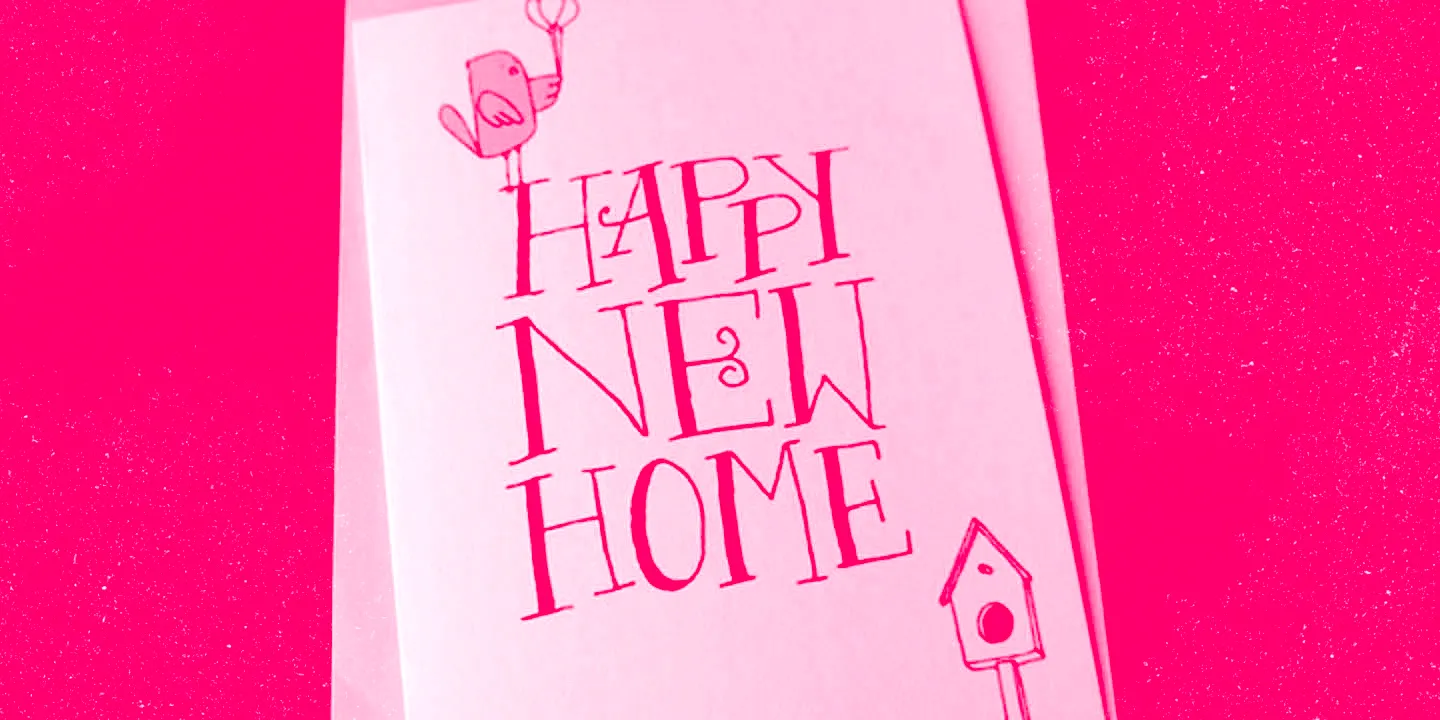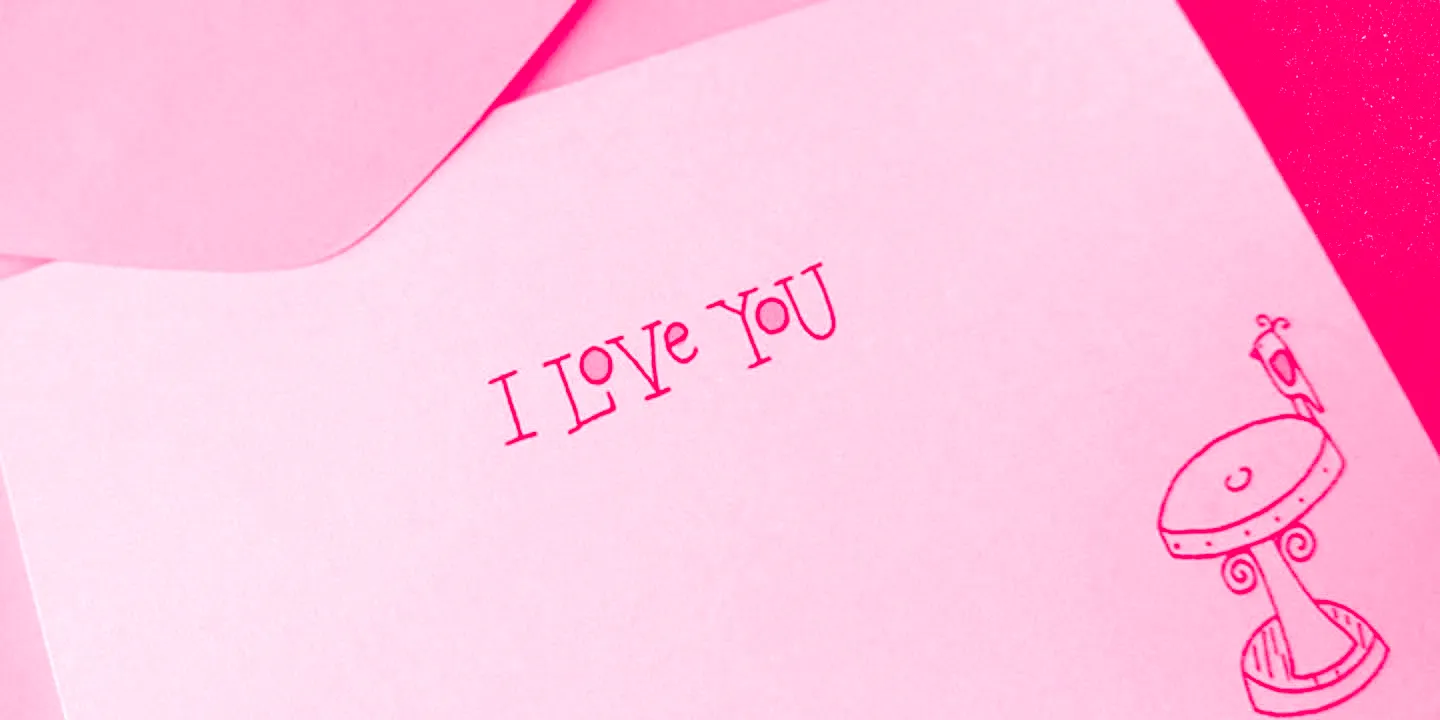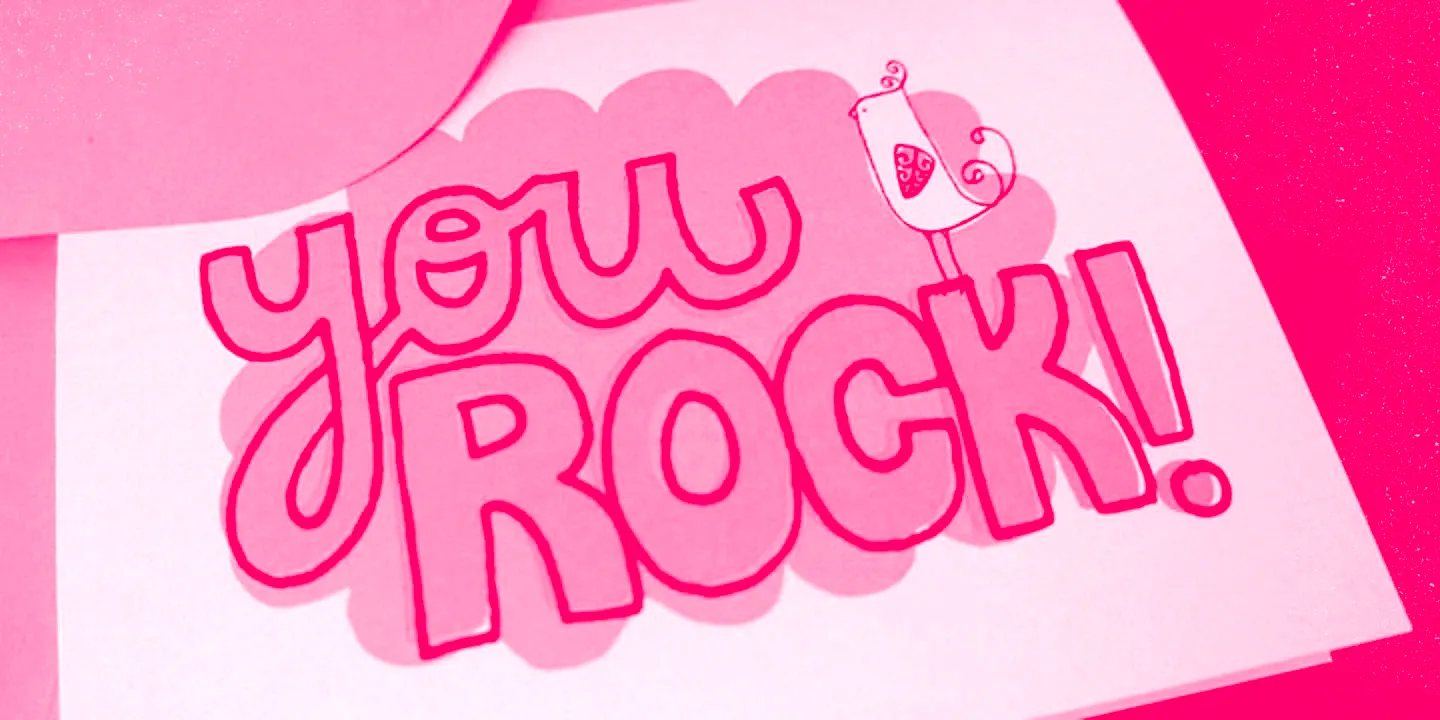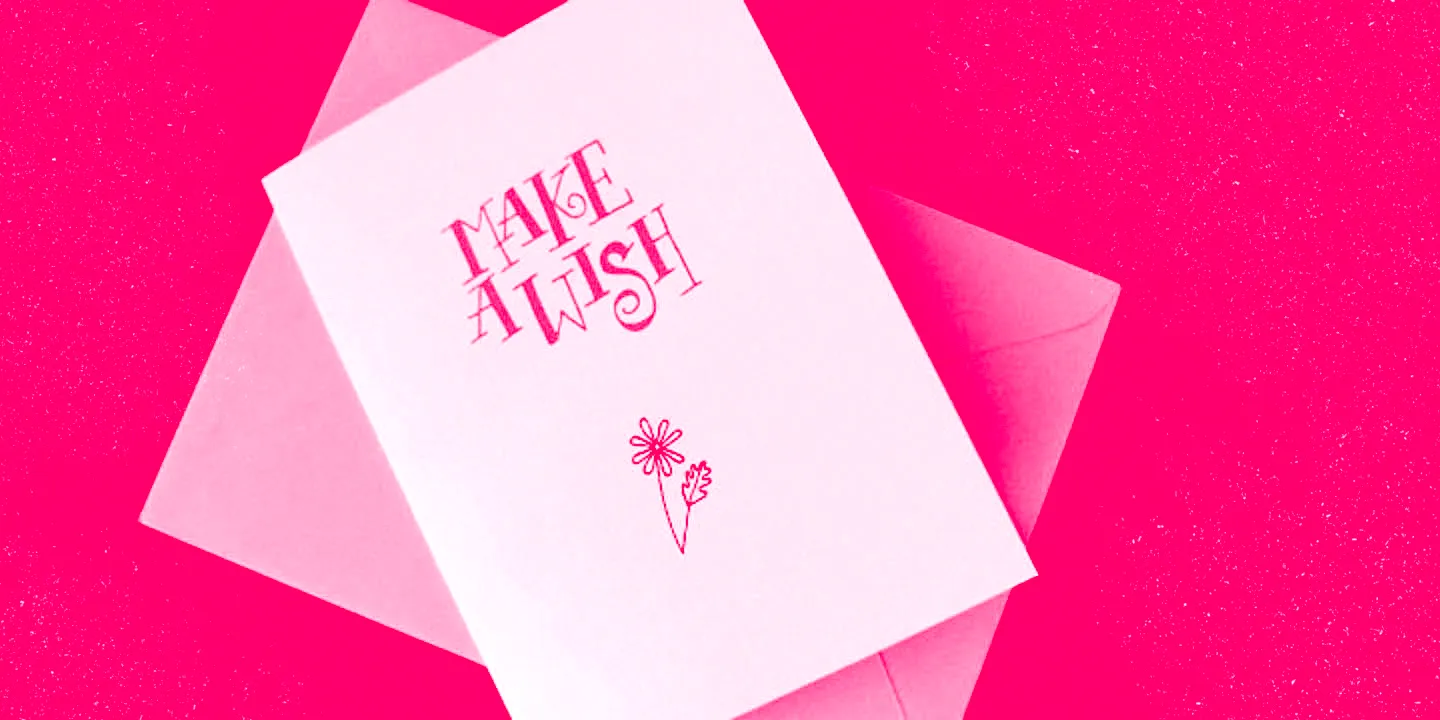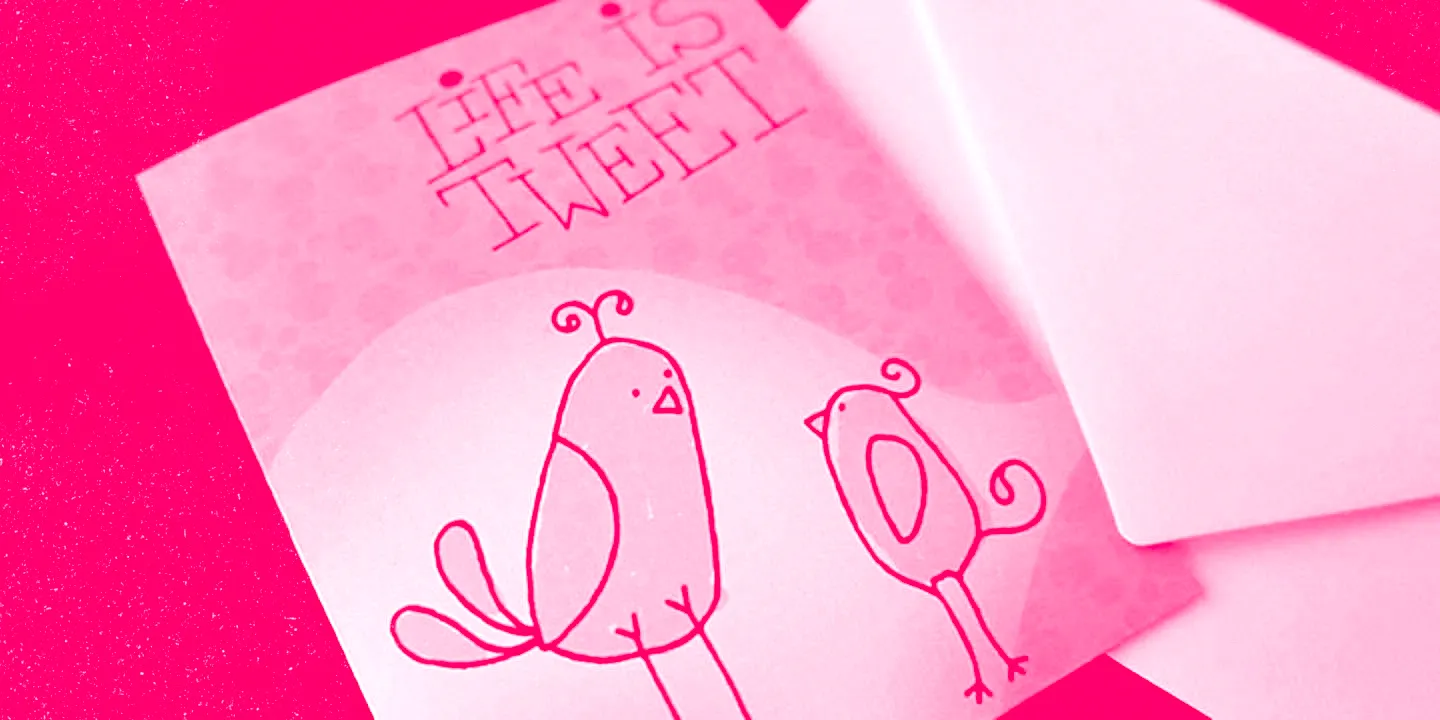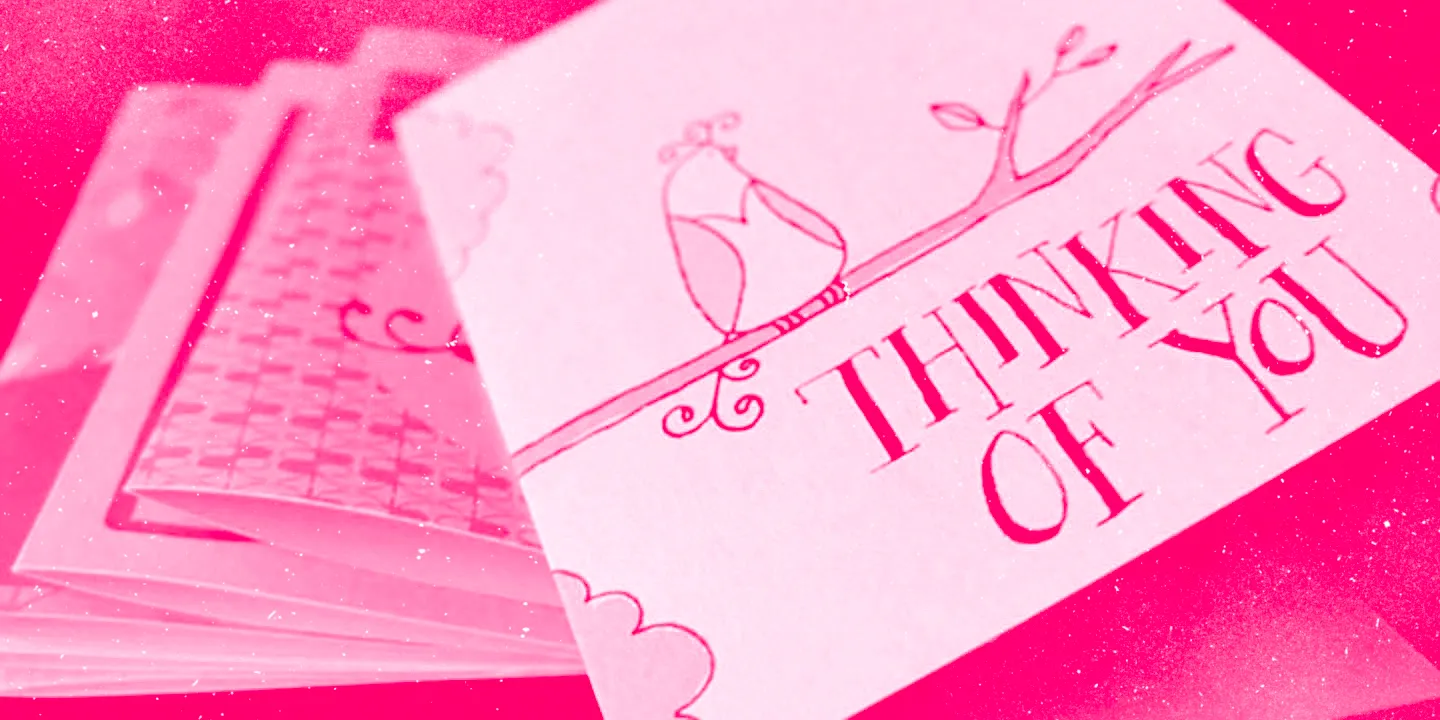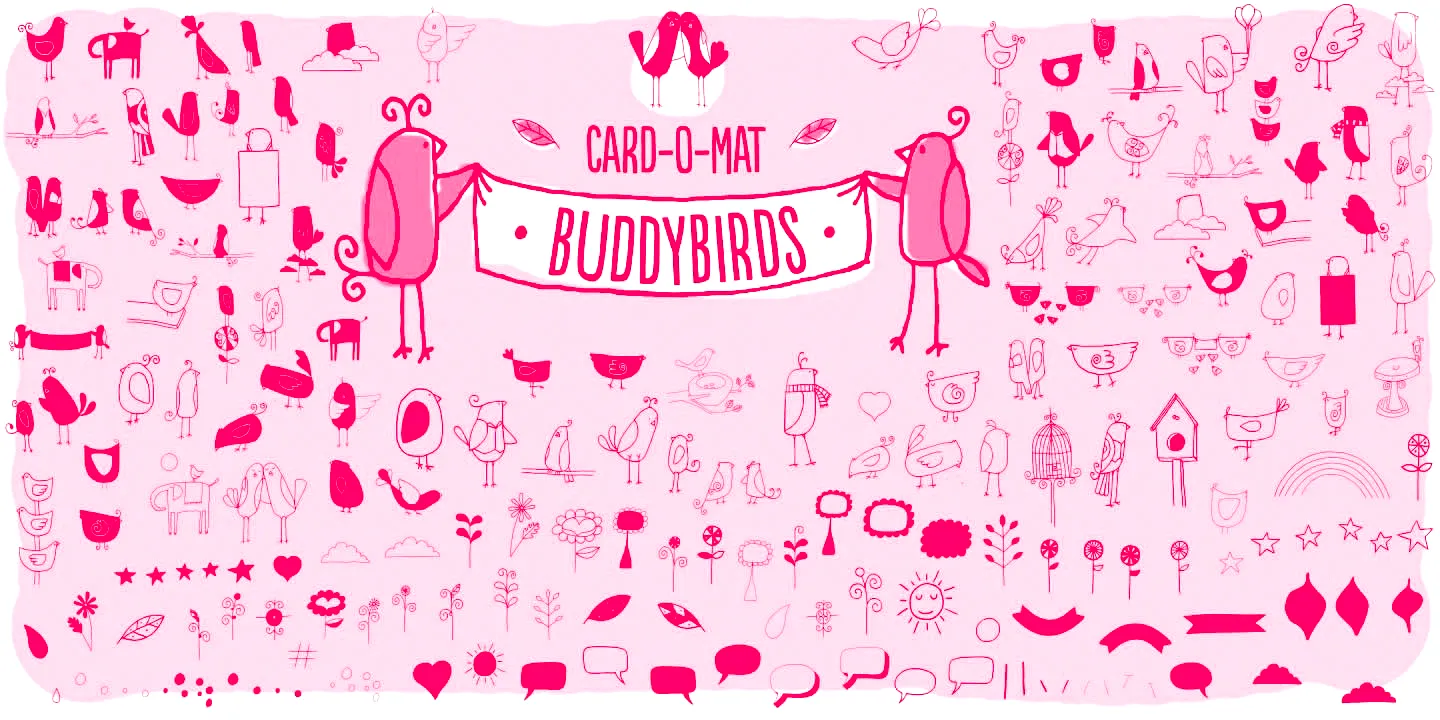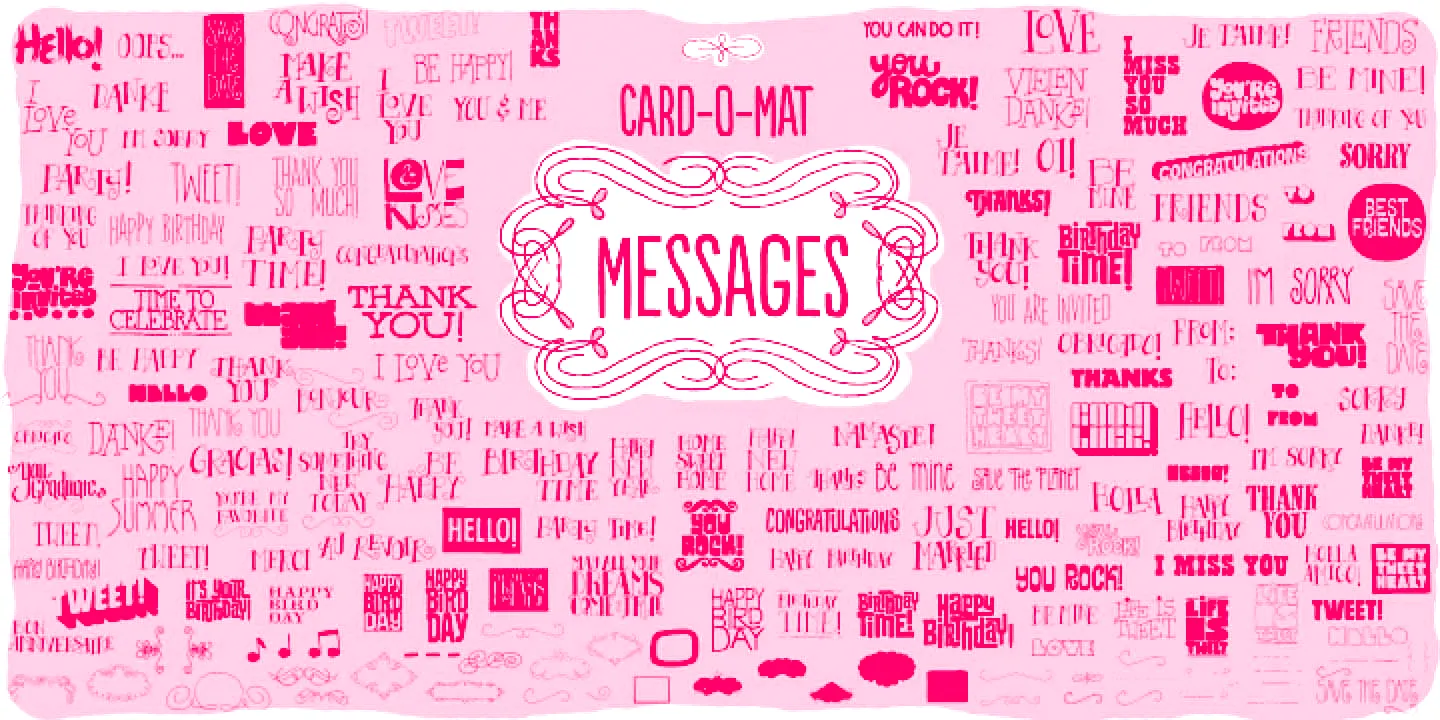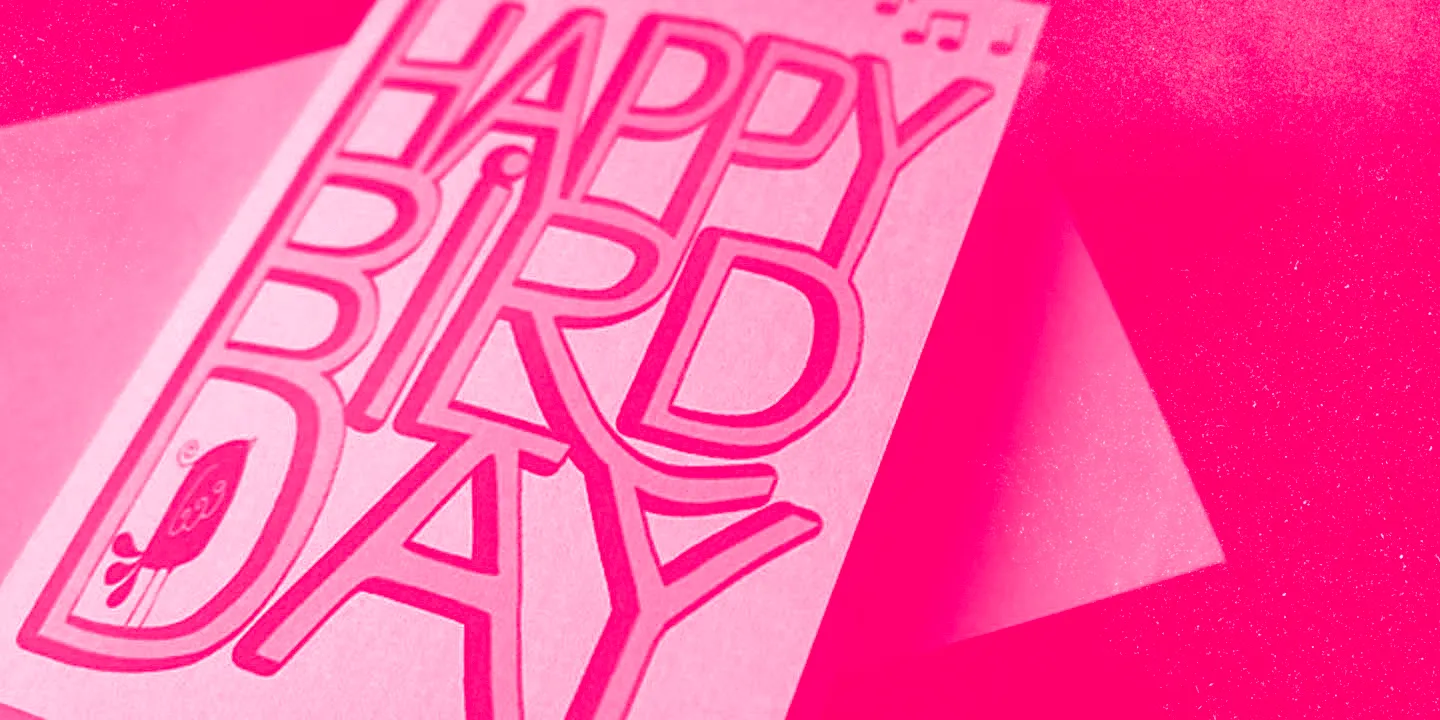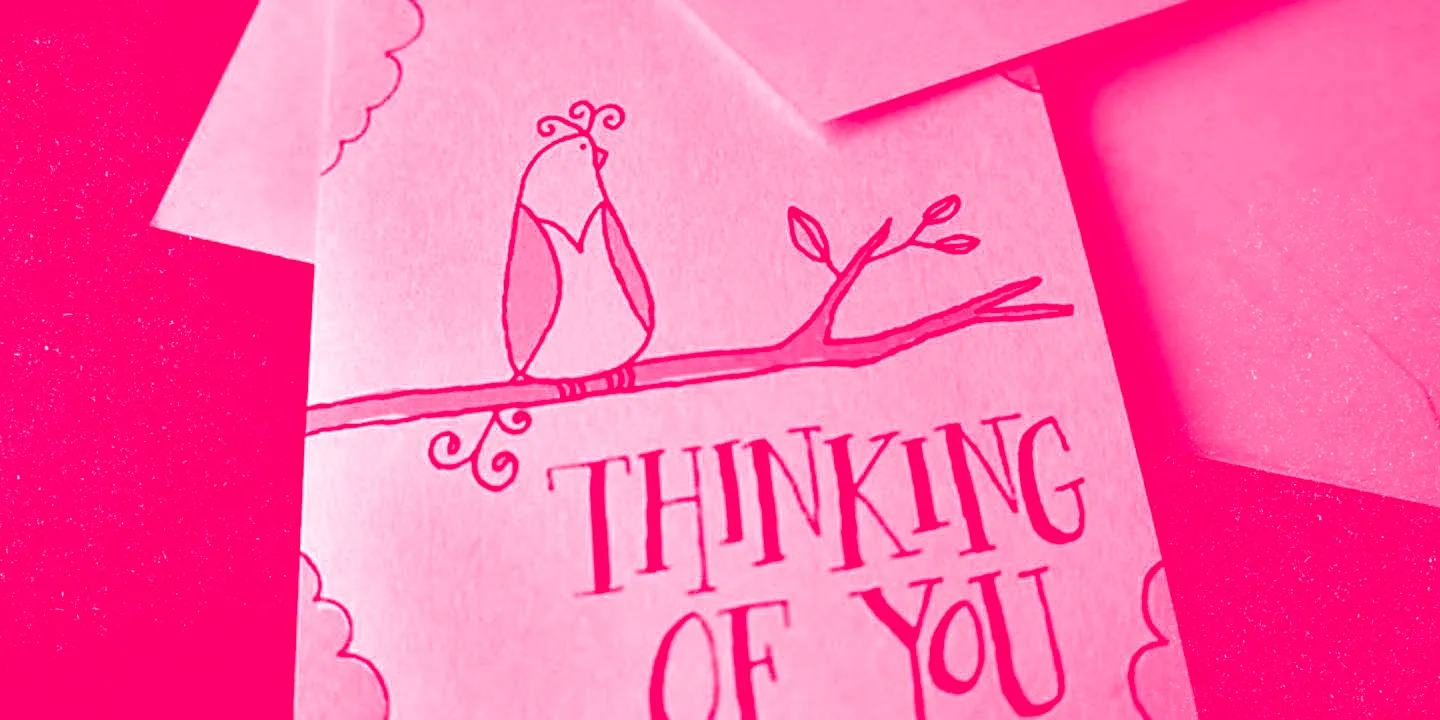
Card-O-Mat Font Family
Card-O-Mat
Card-O-Mat is a whimsical collection of hand-drawn birds and hand-lettered messages. Designed with playful greeting cards and memorable scrapbooks in mind. The Messages font features a wide range of phrases in various styles and BuddyBirds includes quirky bird characters in various poses. Use Card-O-Mat to add warmth and humor to children’s crafts, classroom posters, or cheerful DIY projects.